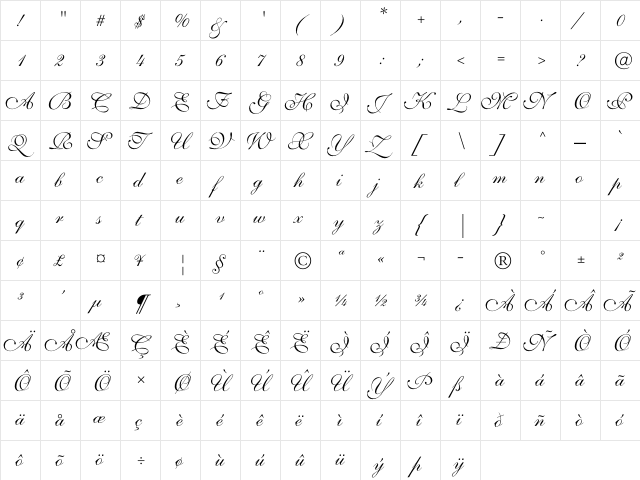
Allegretto Script TwoC Regular Font Preview
Allegretto Script TwoC Regular
Design Context for Allegretto Script TwoC Typeface
Allegretto Script TwoC brings a calligraphic fluidity to the page — its connecting strokes and expressive curves give it an unmistakably human quality.
Font Pairing: Combine Allegretto Script TwoC with a simple geometric sans for maximum contrast — the tension between flowing curves and clean structure is a classic typographic pairing.
Pro Tip: Pair Allegretto Script TwoC with a clean sans-serif for supporting text. The contrast between fluid script and geometric structure creates an elegant typographic hierarchy.